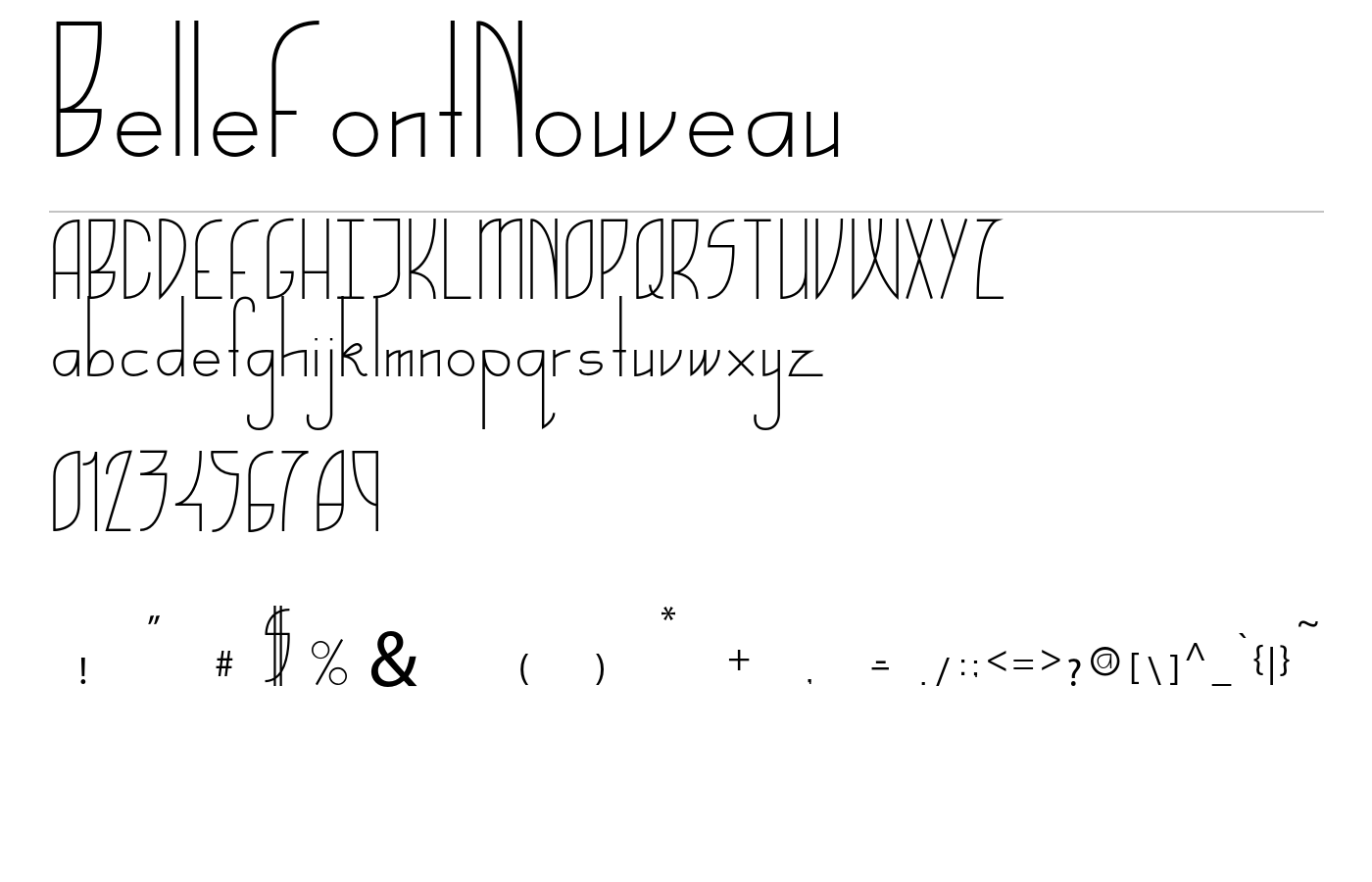
BelleFontNouveau is a delicate, ultra-thin sans serif font with a distinctive Art Nouveau flair, featuring elongated letterforms and subtle geometric shapes that create an elegant, vintage-inspired look. Its tall, narrow structure and unique character details make it ideal for stylish headlines, logos, or branding that seeks a refined and artistic touch. This font works best in creative or fashion-forward contexts where a light, sophisticated aesthetic is desired.
| Font family | BelleFontNouveau Font |
| Designer | Beau MacDonald |